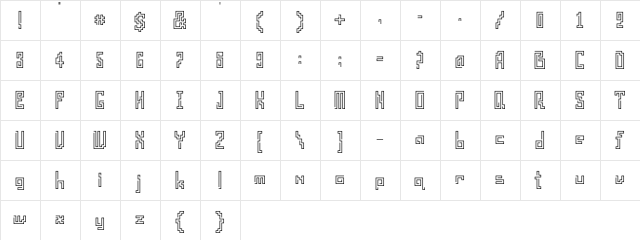
Pype Light
Design Context for Pype Typeface
Pype is a composed and adaptable typeface that performs quietly and consistently across a wide range of design contexts. Its slender proportions lend an understated elegance to any composition.